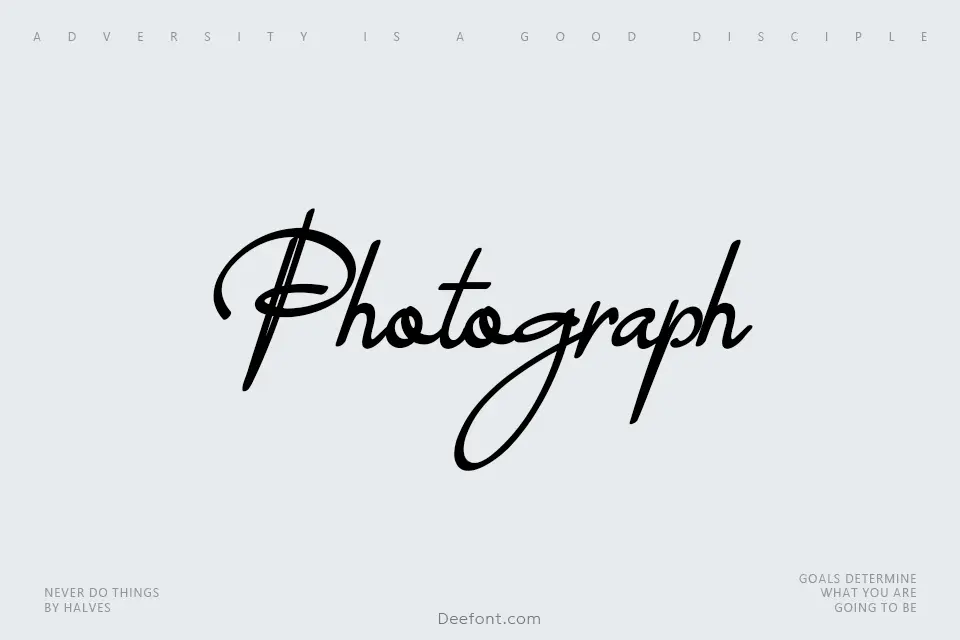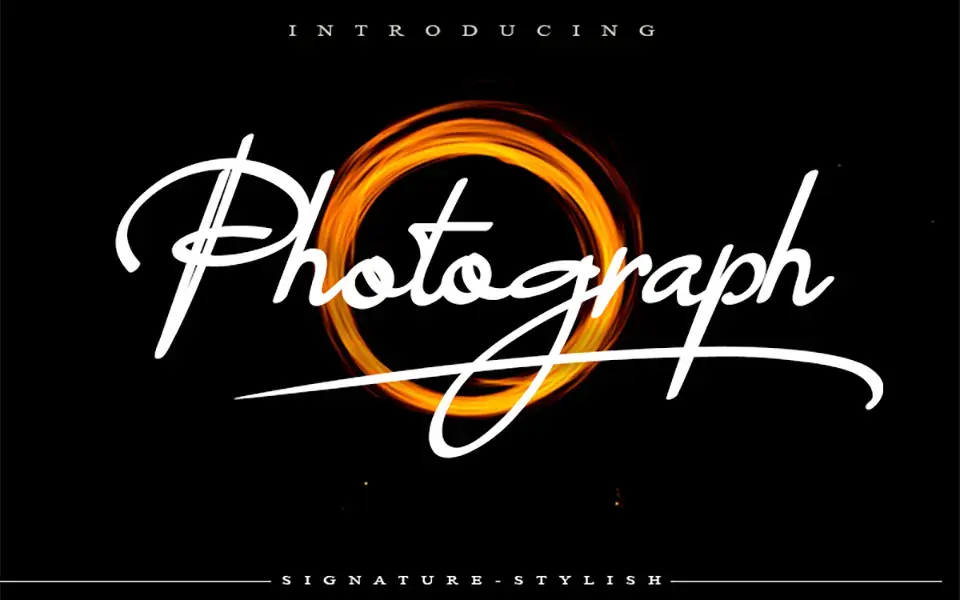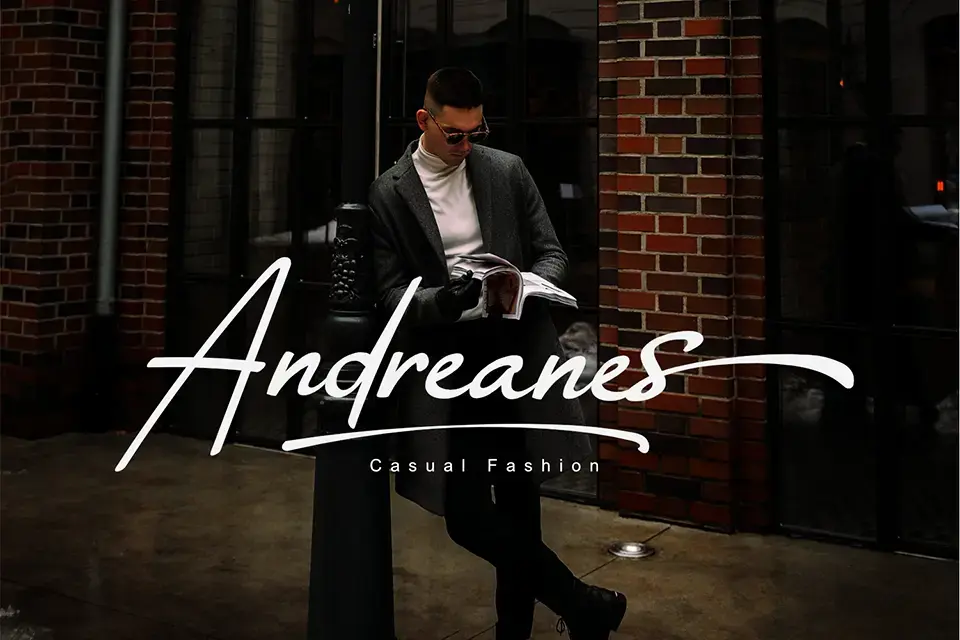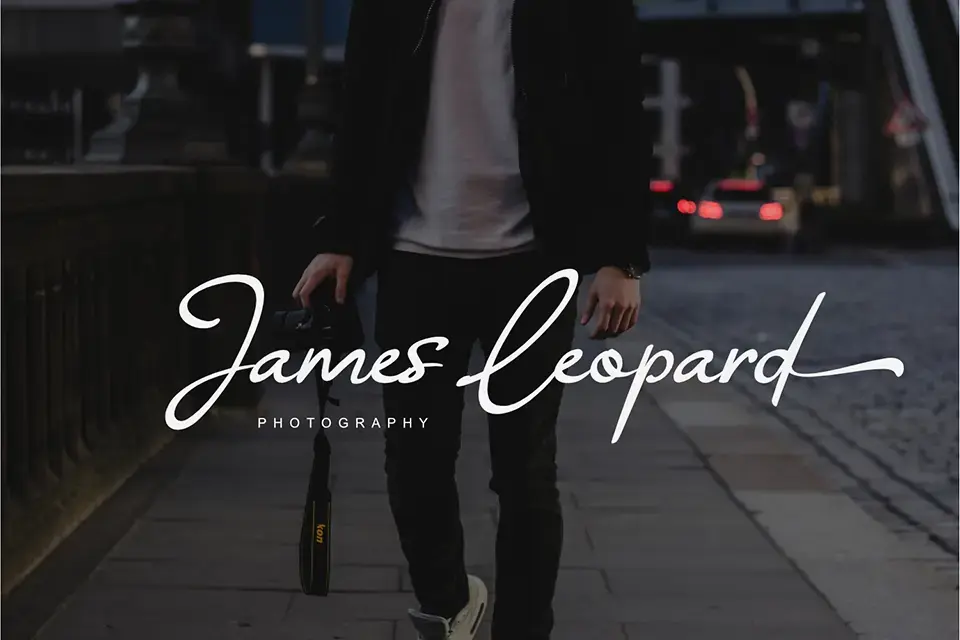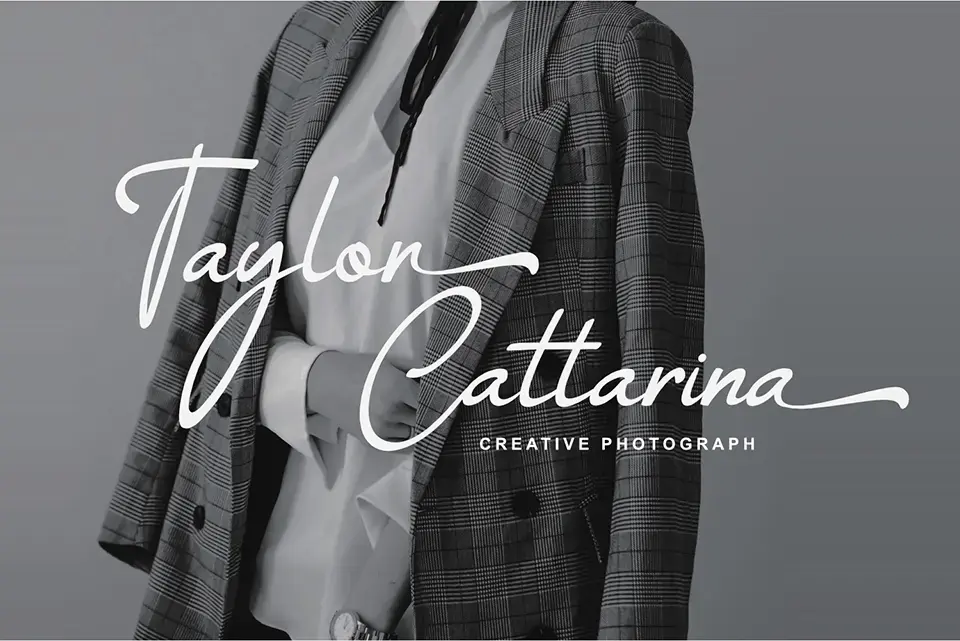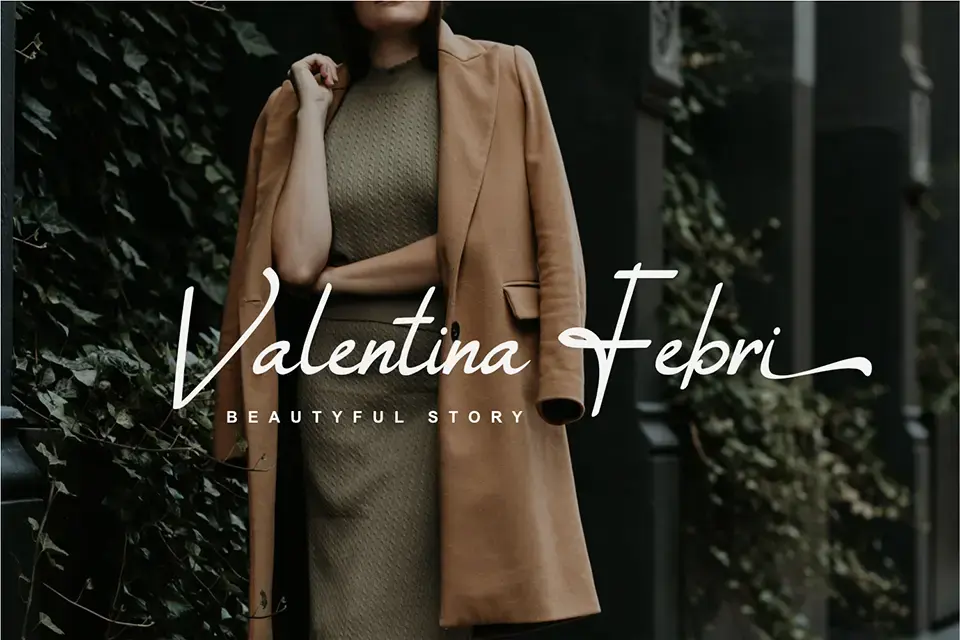
Photograph Font
Photograph is a lovely and thin lettered script font that exudes elegance and class. This handwritten typeface features refined strokes and a graceful baseline, making it ideal for branding projects, logo design, wedding invitations, social media posts, photography watermarks, product packaging, and stationery. The font’s delicate letterforms and sophisticated aesthetic make it perfect for any project requiring an elegant handwriting taste.